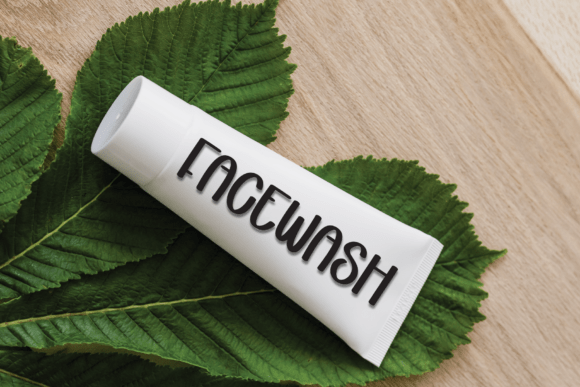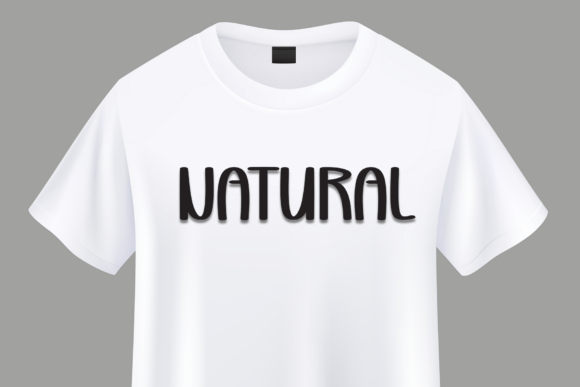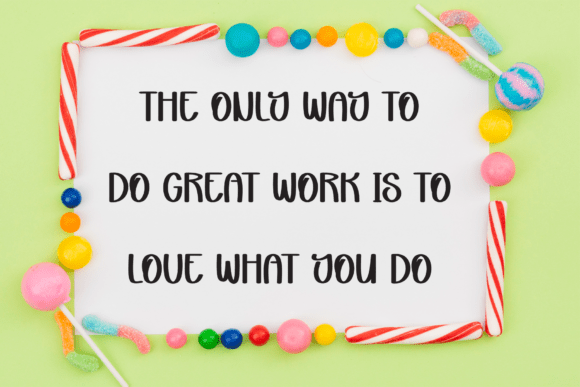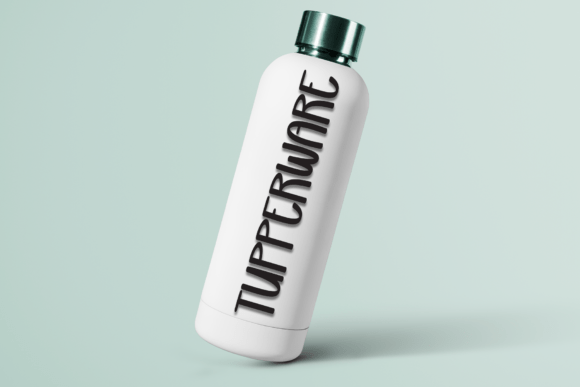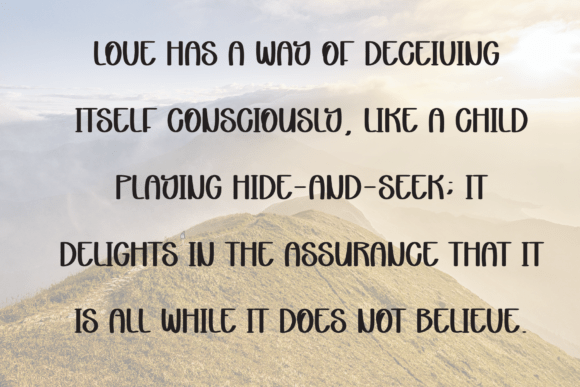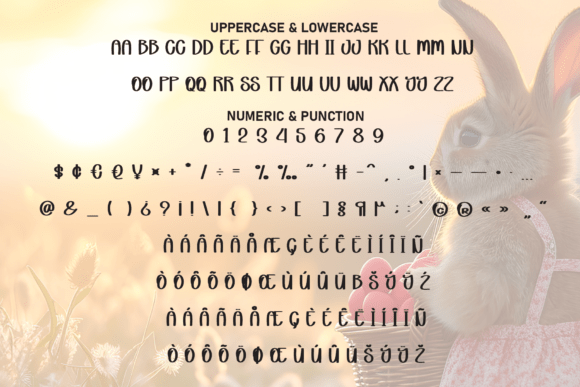
Spreading Joy with the Perfect Font
Have you ever been brainstorming a new design project, only to be stuck on the perfect font to convey the right vibe? It’s a common creative conundrum, but one that can make all the difference in bringing your vision to life. For designers seeking a friendly and approachable look, the answer lies in the charming Bunny Sunshine Font.
With its clean lines and relaxed structure, this display font radiates a fresh and welcoming atmosphere, making it ideal for packaging, posters, and social media graphics. The Bunny Sunshine Font adds a touch of charm and clarity to projects, while maintaining a polished appearance that’s sure to impress. As a valuable asset in any designer’s toolkit, it’s a must-have for anyone looking to infuse their work with a little extra sunshine.
Bunny Sunshine Font Key Features
- Unique Characteristics: The Bunny Sunshine Font features a playful, hand-drawn design with bold and colorful lines, making it perfect for creating eye-catching and whimsical designs.
- Font Styles: The font includes 3 different font styles: Regular, Bold, and Italic, providing versatility for various design applications.
Bunny Sunshine Font Review
I was excited to dive into the Bunny Sunshine Font and see what it’s all about. Here’s my honest take.
- Playful and cheerful vibe: The Bunny Sunshine Font has a great energy that’s perfect for projects that need a little pick-me-up.
- Cute and quirky characters: The font’s unique characters add a fun touch to any project.
- Limited versatility: While the font is perfect for certain projects, it may not be suitable for more formal or professional designs.
- Some character inconsistencies: I noticed a few instances where characters didn’t quite line up or had slight spacing issues.
Overall, I think the Bunny Sunshine Font is a great addition to any designer’s toolkit. While it may have some limitations, its playful vibe and customization options make it a great choice for the right projects. Just be mindful of its limitations and adjust accordingly.
Tips for Getting the Most Out of Bunny Sunshine Font
To get the most out of Bunny Sunshine Font, use it in designs that require a playful and whimsical feel. This font is perfect for children’s books, nursery decor, and social media graphics.
Bunny Sunshine Font is commonly used in:
- Children’s book covers and illustrations